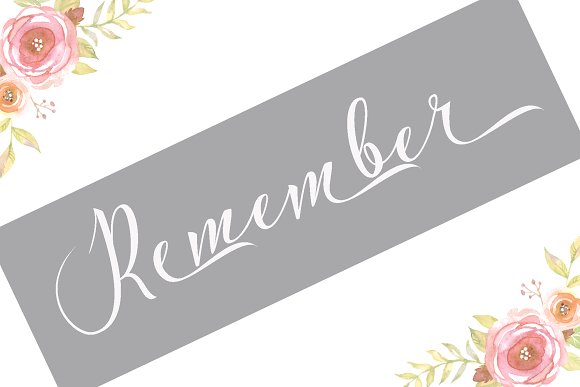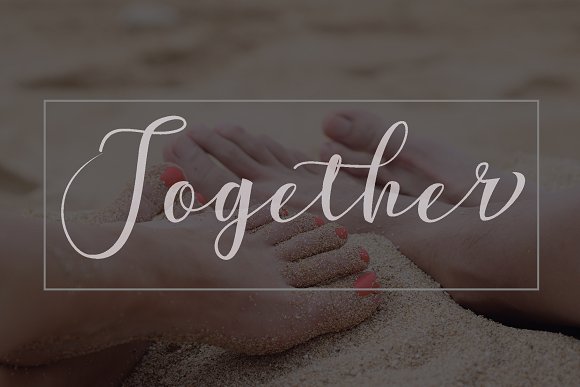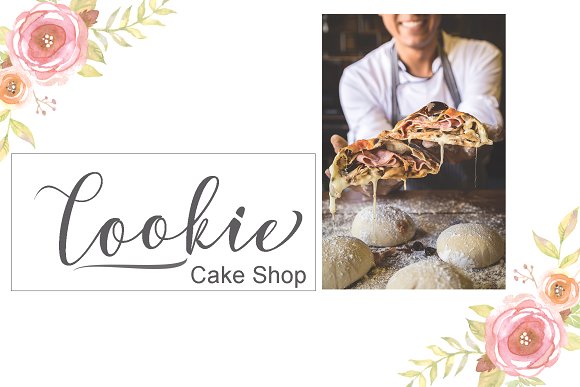
Litton Font
INTRODUCING
Litton Modern Calligraphy. This font was designed by handwriting, and it has a modern and unique forms of calligraphy, the writing style is very natural. Litton has a very unique style of calligraphy, it is very suitable for use in the work of modern design.